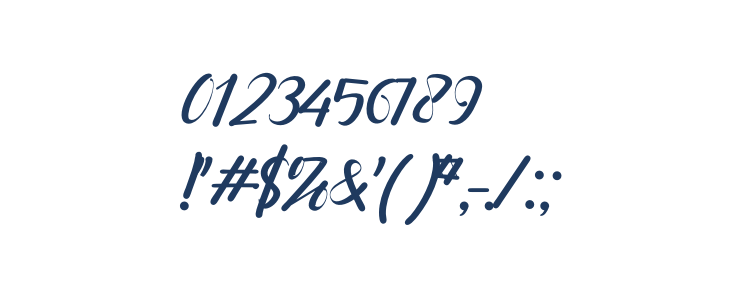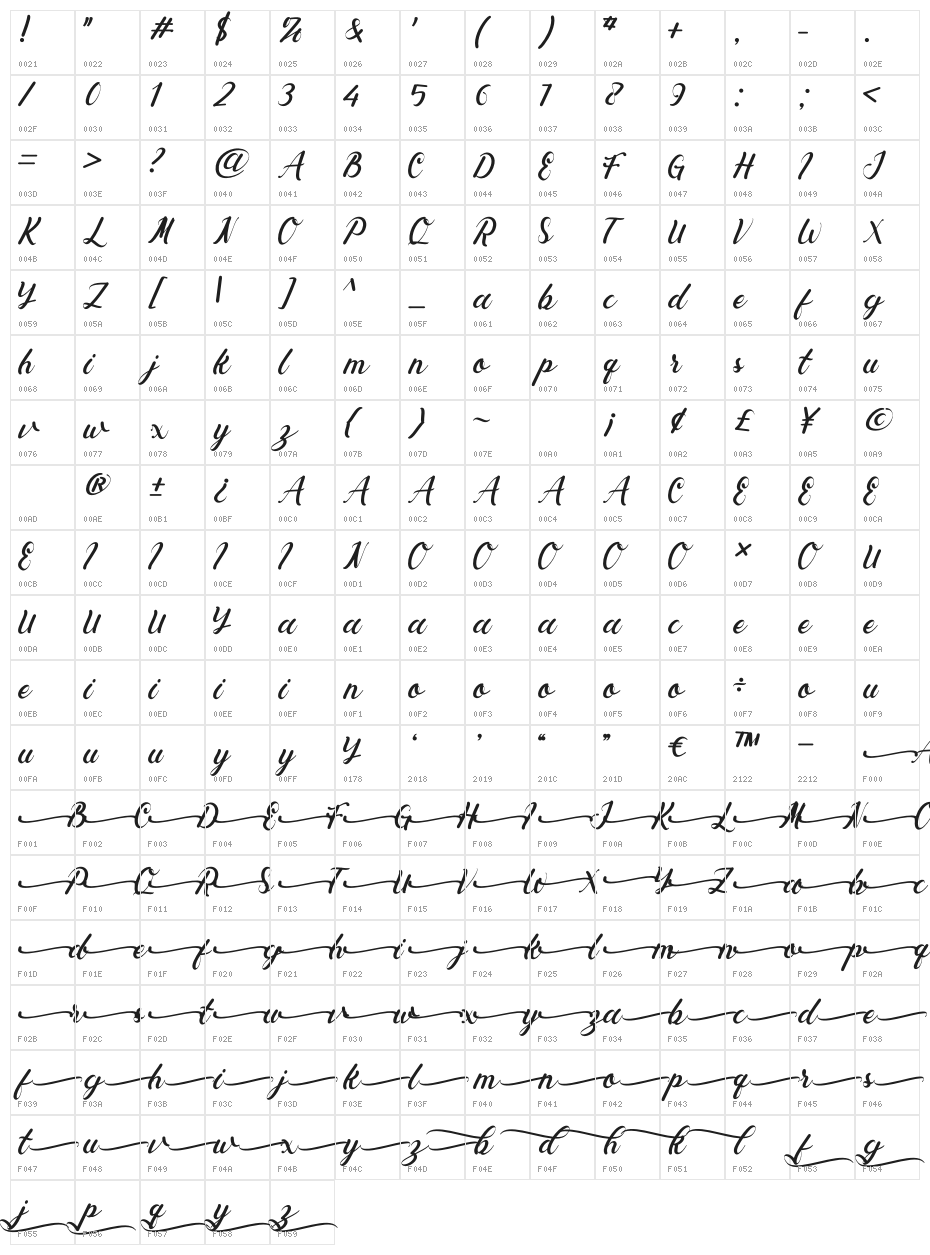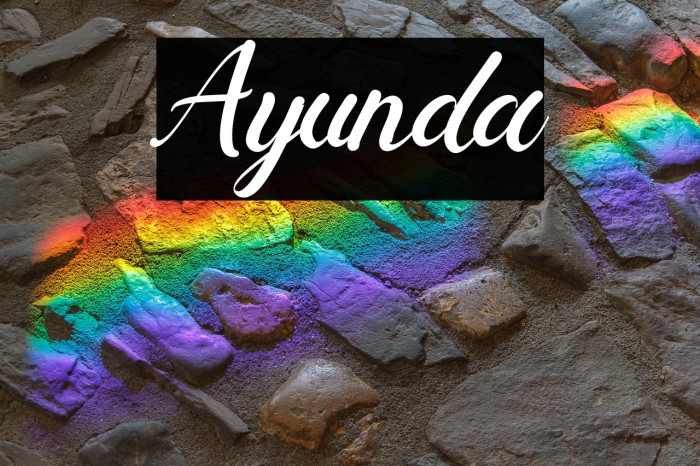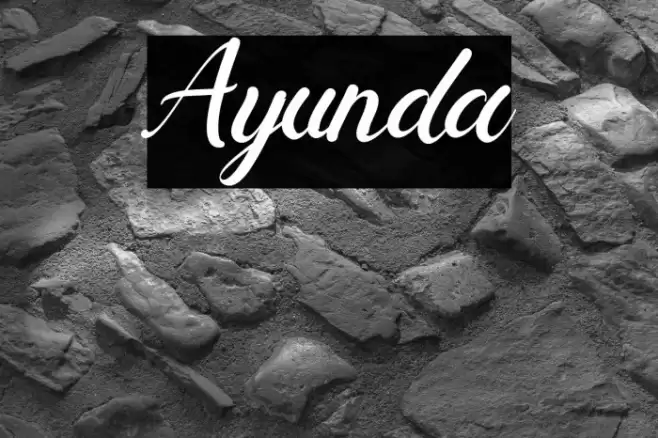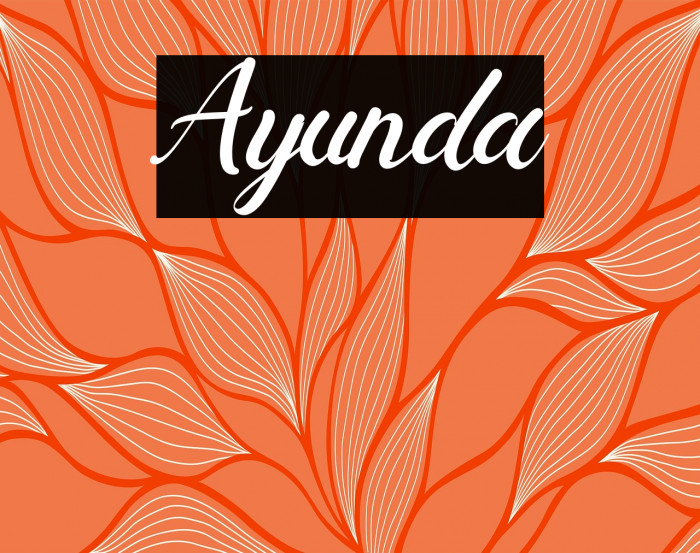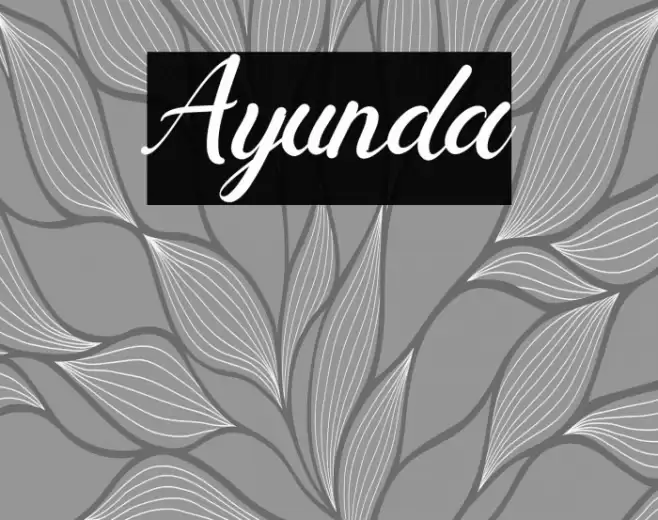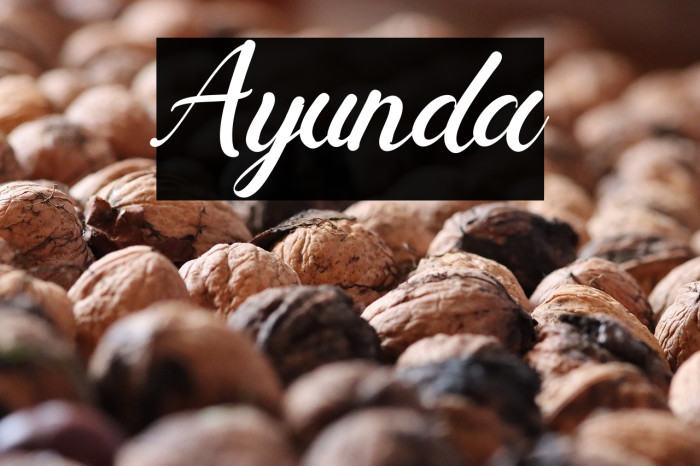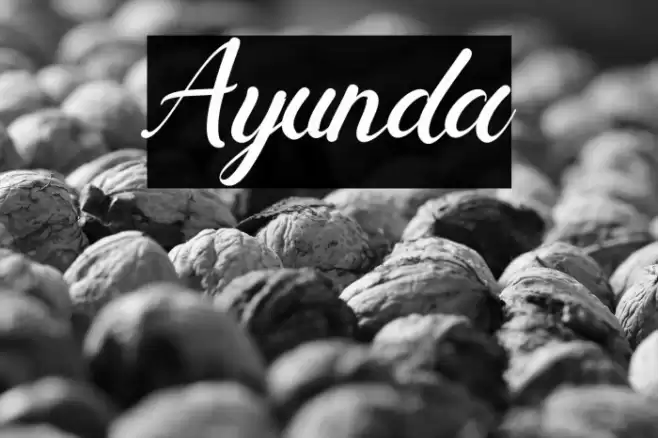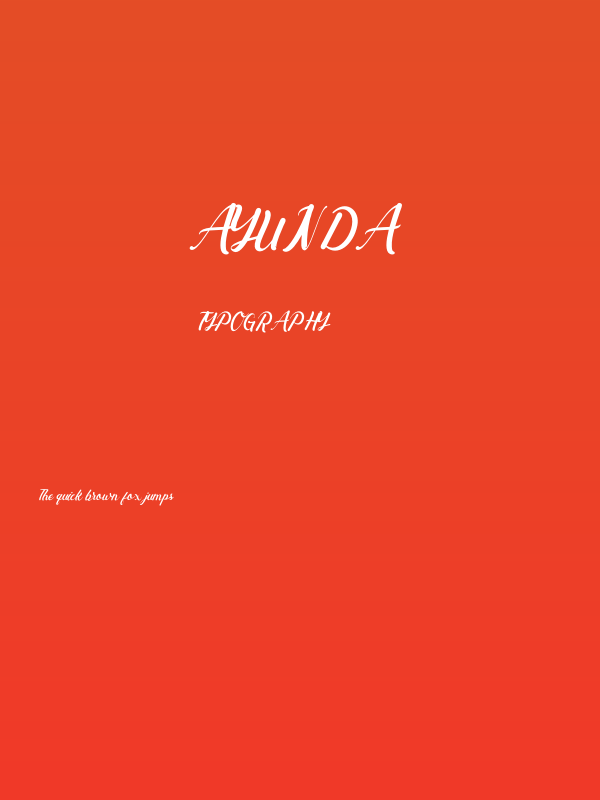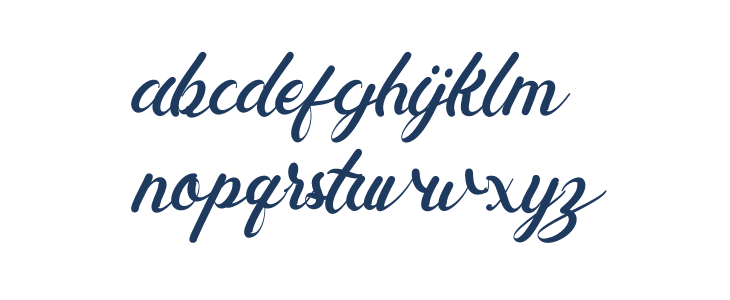
Ayunda Font
Ayunda Description
This elegant script font features flowing, cursive letters with a graceful and sophisticated appearance. The characters are interconnected, creating a seamless and fluid look. The uppercase letters are slightly more ornate, with sweeping curves and flourishes, while the lowercase letters maintain a consistent, smooth flow. The numerals are styled to match the overall cursive theme, adding a touch of elegance to any numerical display. Special characters are designed with the same attention to detail, ensuring a cohesive look across all text. This font exudes a sense of refinement and is perfect for projects that require a touch of class and elegance.